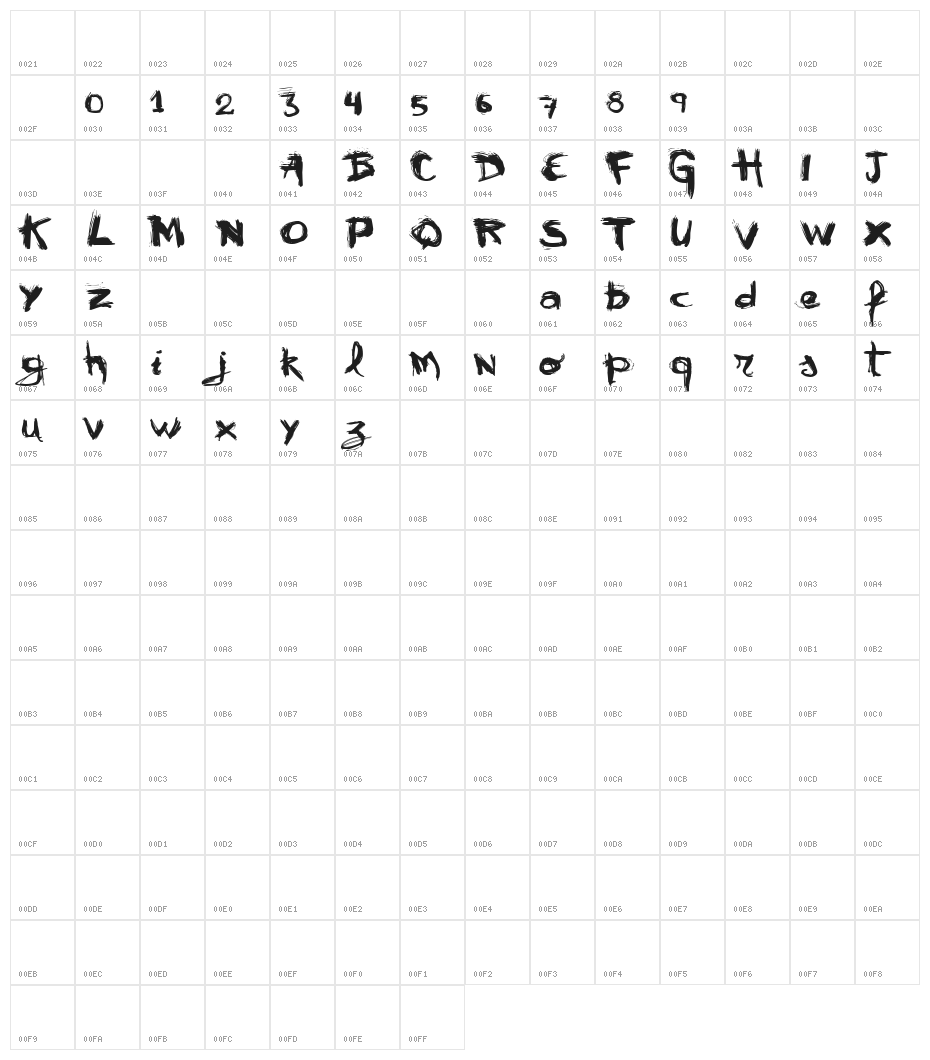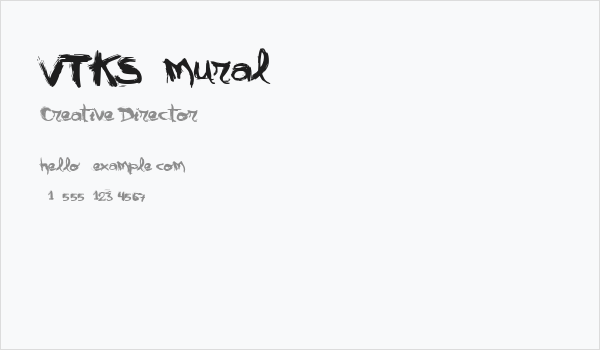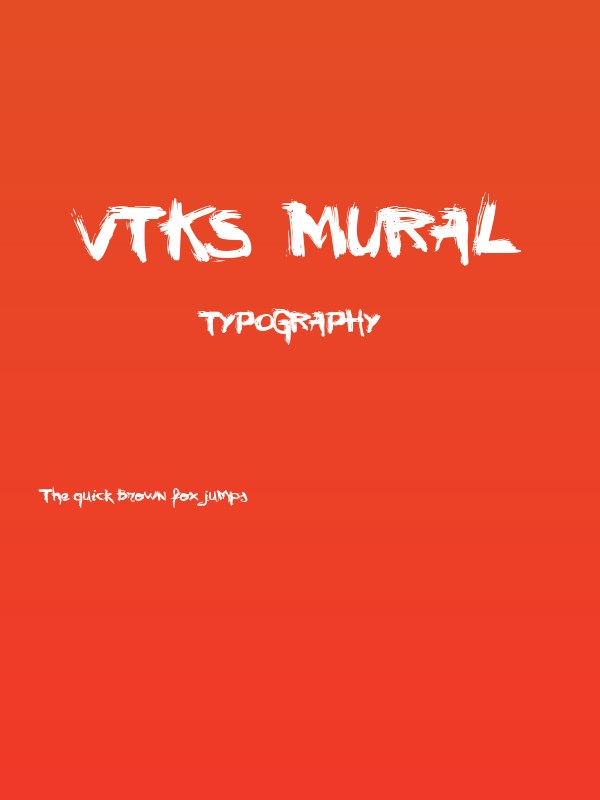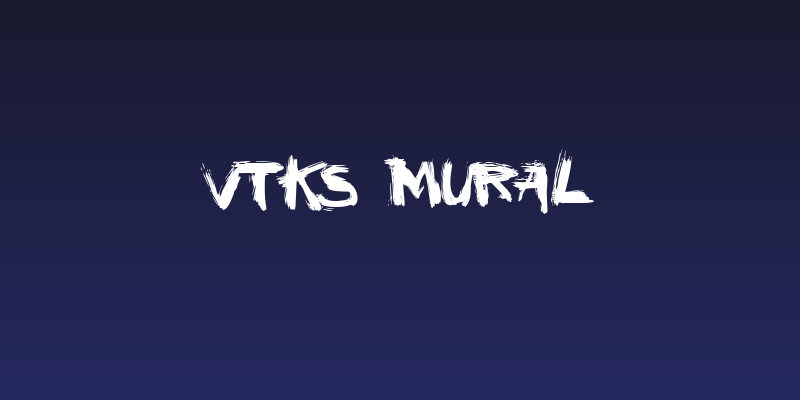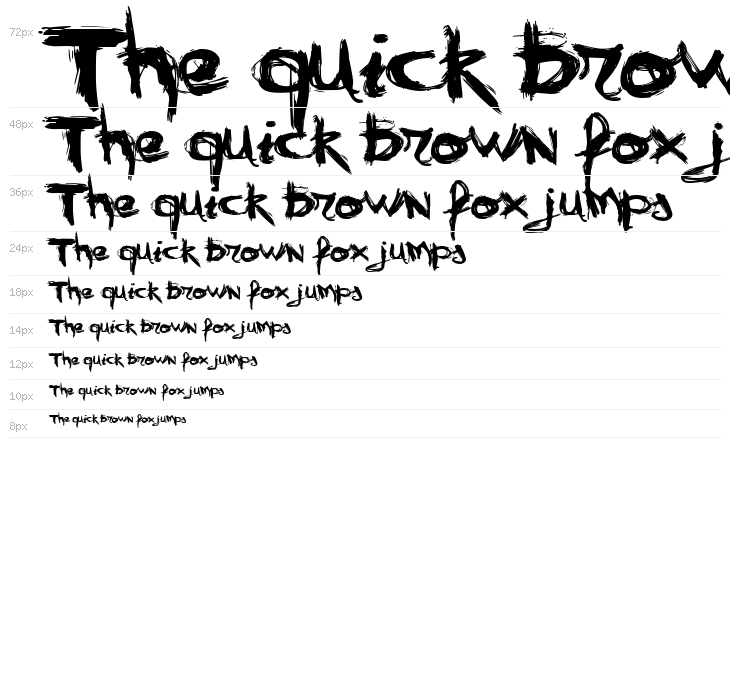
VTKS mural Font
| النمط العام | Urban, Edgy, Artistic |
| مشاريع مقترحة | Perfect for street art designs, music album covers, posters, and urban-themed branding. |